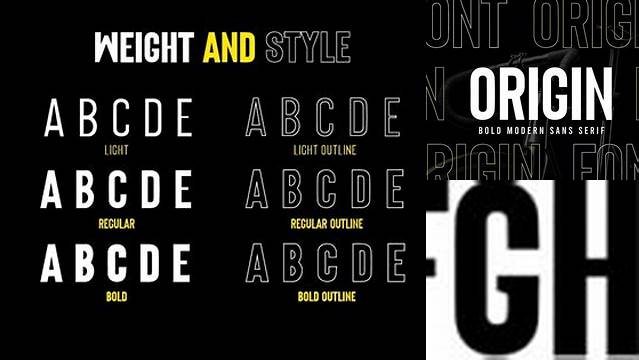
Hey guys! Ever been on the hunt for that perfect retro font to give your designs a bit of a vintage kick? Well, you're in luck! Today, we're diving deep into the world of Origin Font, a bold retro sans serif that you can download for free. We’re going to explore everything from its unique characteristics and best uses to how you can get your hands on it. So, buckle up and let’s get started!
1. What is Origin Font?
Origin Font is a stunning bold retro sans serif typeface that effortlessly blends the charm of vintage typography with modern design principles. Imagine those classic movie posters and retro advertisements – Origin Font captures that essence perfectly. Its clean lines and sturdy letterforms make it highly legible, while its distinctive style adds a touch of nostalgia to any project. This font isn't just about aesthetics; it’s about making a statement. The boldness commands attention, making it ideal for headlines, logos, and other prominent design elements. But what truly sets Origin Font apart is its versatility. It’s not just a one-trick pony; it can be used across various mediums, from print to digital, ensuring your message stands out no matter the context. Origin Font’s design incorporates subtle curves and precise angles, creating a balanced and harmonious visual experience. This attention to detail is what elevates it from a simple retro font to a design powerhouse, capable of enhancing any creative endeavor. Whether you're working on a branding project, website design, or even social media graphics, Origin Font can add that extra layer of sophistication and style.
2. Key Features of Origin Font
One of the standout key features of Origin Font is its boldness. It commands attention and makes a statement, ensuring your text stands out. This makes it perfect for headlines, titles, and logos where you need to make a strong impact. The retro aesthetic is another significant feature. Origin Font beautifully captures the essence of vintage typography, giving your designs a nostalgic and timeless feel. It's like stepping back into the golden age of design while still maintaining a modern edge. The font's sans serif design contributes to its clean and modern appearance. The absence of serifs (the small decorative strokes at the end of letters) gives it a minimalist look, making it easy to read and visually appealing. Legibility is crucial, and Origin Font excels in this area. Its clear and well-defined letterforms ensure that your text is easily readable, even at smaller sizes. This is particularly important for body text and other detailed applications. Origin Font also boasts impressive versatility. It works well across various design projects, from print materials like posters and flyers to digital platforms like websites and social media graphics. Its adaptability makes it a valuable asset in any designer's toolkit. The font’s character set typically includes uppercase and lowercase letters, numerals, punctuation marks, and often a range of special characters and symbols. This comprehensive character set allows for extensive typographic flexibility, ensuring you have everything you need to create compelling and professional designs. Origin Font often includes multiple weights and styles, such as regular, italic, and bold variations. This variety allows you to create typographic hierarchies and add visual interest to your designs. Having different weights also enhances the font's usability across various contexts and design needs.
3. Best Uses for Bold Retro Sans Serif Fonts
Bold retro sans serif fonts like Origin are incredibly versatile and can be used in a myriad of design projects. One of the most popular applications is in branding. The boldness and vintage charm of these fonts make them perfect for creating logos and brand identities that stand out and evoke a sense of nostalgia. Think about brands that want to project a classic yet contemporary image – a bold retro sans serif font can be the perfect choice. Headlines and titles are another area where these fonts shine. Their strong, impactful presence ensures that your message is immediately noticed. Whether it's a website header, a poster headline, or a magazine title, a bold retro sans serif font can grab attention and draw the reader in. These fonts are also excellent for posters and flyers. The combination of boldness and retro style can create visually striking designs that are sure to catch the eye. They're particularly effective for events, promotions, and announcements where you want to make a big impact. For packaging design, a bold retro sans serif font can add a touch of vintage flair to your product. This can be especially effective for products that want to convey a sense of quality, craftsmanship, or nostalgia. Think about craft beers, artisanal goods, and vintage-inspired products – these fonts can enhance the overall aesthetic and appeal. In website design, bold retro sans serif fonts can be used to create a unique and engaging user experience. They can be used for headings, navigation menus, and other key elements to add personality and style to your site. Social media graphics also benefit from the use of these fonts. With so much content vying for attention, a bold retro sans serif font can help your posts stand out in a crowded feed.
6. Pairing Origin Font with Other Fonts
Pairing fonts effectively is crucial for creating visually appealing and harmonious designs. Origin Font, with its bold retro sans serif style, can be beautifully complemented by a variety of other fonts. The key is to find fonts that balance its boldness and retro charm without overpowering it. One classic pairing strategy is to combine a bold sans serif like Origin with a simpler, more understated sans serif. For example, pairing Origin Font with a clean and modern sans serif like Open Sans or Lato can create a balanced and professional look. The simpler font provides a neutral backdrop that allows Origin Font to stand out as a headline or title. Another approach is to pair Origin Font with a serif font. This combination can add a touch of elegance and sophistication to your designs. A good choice might be a classic serif font like Times New Roman or Georgia. The contrast between the bold sans serif and the serif font can create a visually interesting and dynamic effect. When pairing fonts, it's important to consider the overall tone and style of your design. If you're aiming for a vintage or retro look, you might pair Origin Font with another retro-inspired font, such as a script or hand-lettered typeface. However, it's crucial to use this approach sparingly, as too many retro elements can make your design look cluttered or outdated. For a more modern and minimalist design, you might pair Origin Font with a lighter, more geometric sans serif. Fonts like Montserrat or Raleway can work well in this context. The key is to choose a font that complements Origin Font's boldness without competing for attention. Color can also play a significant role in font pairing. Using contrasting colors for different fonts can help to highlight the differences between them and create visual interest. However, it's important to use color thoughtfully and avoid combinations that are jarring or difficult to read. In addition to considering the visual aspects of font pairing, it's also important to think about legibility. Make sure that the fonts you choose are easy to read, especially in body text. Avoid using fonts that are too similar in weight or style, as this can make your text look monotonous. Experimentation is key to finding the perfect font pairings. Don't be afraid to try different combinations and see what works best for your design. Online resources like FontPair and Typewolf can provide inspiration and suggestions for font pairings, helping you to create stunning and effective typography.
7. Origin Font in Branding and Logo Design
When it comes to branding and logo design, choosing the right font is crucial. Origin Font, with its bold retro sans serif style, can be a fantastic choice for brands looking to project a strong, vintage-inspired image. Its boldness and distinctive character make it ideal for creating logos that stand out and leave a lasting impression. One of the primary reasons Origin Font works well in branding is its versatility. It can be used across various industries, from fashion and lifestyle to food and technology. Its retro aesthetic can evoke a sense of nostalgia and quality, making it particularly effective for brands that want to convey a sense of heritage or craftsmanship. In logo design, Origin Font can be used in a variety of ways. It can serve as the primary typeface for the logo, creating a strong and memorable visual identity. Alternatively, it can be used in combination with other fonts to create a more layered and dynamic design. When using Origin Font in a logo, it's important to consider the overall brand message and target audience. The font's boldness and retro style may not be suitable for every brand. However, for brands that want to project confidence, authenticity, and a touch of nostalgia, it can be an excellent choice. The clean lines and clear letterforms of Origin Font also make it highly legible, even at smaller sizes. This is crucial for logo design, as the logo needs to be recognizable and readable across various applications, from business cards to website favicons. Color plays a significant role in branding, and Origin Font pairs well with a variety of color palettes. For a vintage-inspired look, you might consider using muted tones and earthy colors. For a more modern and vibrant feel, you can pair Origin Font with bold, saturated colors. In addition to the typeface itself, the overall composition and layout of the logo are important. Experiment with different arrangements and spacing to find a design that is visually appealing and effectively communicates your brand message. When using Origin Font in branding materials beyond the logo, such as website headers, marketing collateral, and social media graphics, it's important to maintain consistency. Use the font in a consistent way across all touchpoints to create a cohesive brand identity. Overall, Origin Font is a valuable asset for branding and logo design. Its boldness, retro charm, and versatility make it a great choice for brands that want to stand out and make a statement. By using it thoughtfully and consistently, you can create a strong and memorable brand identity that resonates with your target audience.
8. Using Origin Font in Web Design
In web design, typography plays a crucial role in creating an engaging and user-friendly experience. Origin Font, with its bold retro sans serif style, can be a fantastic asset for adding personality and style to your website. However, it's essential to use it thoughtfully to ensure optimal readability and visual harmony. One of the primary considerations when using Origin Font in web design is readability. While its boldness makes it great for headlines and titles, it may not be the best choice for large blocks of body text. Using a simpler, more legible font for body text can improve the overall reading experience for your visitors. Origin Font works particularly well for headings and subheadings. Its strong presence can help to break up the content and guide the reader's eye. Using Origin Font for headings can also create a visual hierarchy, making it easier for visitors to scan and understand your content. In navigation menus, Origin Font can add a touch of style and sophistication. However, it's important to ensure that the font size is large enough and the spacing is adequate to maintain legibility. A cluttered or hard-to-read navigation menu can frustrate visitors and negatively impact their experience. When using Origin Font on your website, consider the overall design aesthetic. Its retro charm may not be suitable for every type of website. However, if your site has a vintage or retro theme, Origin Font can be a perfect fit. You can also use it to add a touch of personality to a more modern design. Color is another important factor to consider when using Origin Font in web design. Experiment with different color combinations to find a palette that complements the font's style and enhances readability. Using high contrast colors for text and background can improve legibility, while more subtle color schemes can create a more sophisticated look. In addition to visual considerations, it's important to think about performance when using Origin Font on your website. Large font files can slow down your site's loading time, which can negatively impact user experience and SEO. To mitigate this, you can use font optimization techniques such as font subsetting and font compression. Another way to improve performance is to use web fonts hosted on a content delivery network (CDN). CDNs can serve fonts more efficiently, reducing loading times and improving overall website performance. Overall, Origin Font can be a valuable asset for web design. Its boldness and retro style can add personality and visual interest to your site. However, it's essential to use it thoughtfully and in conjunction with other design elements to create a user-friendly and engaging experience.
9. Social Media Graphics with Origin Font
In the fast-paced world of social media, grabbing attention is crucial. Origin Font, with its bold retro sans serif style, can be an excellent choice for creating eye-catching social media graphics. Its boldness and distinctive character make it ideal for headlines, titles, and call-to-action text that stands out in a crowded feed. One of the key advantages of using Origin Font in social media graphics is its versatility. It can be used across various platforms, including Instagram, Facebook, Twitter, and Pinterest. Its retro aesthetic can add a touch of nostalgia and personality to your posts, helping you to connect with your audience on a deeper level. When designing social media graphics with Origin Font, it's important to consider the platform's specific requirements and best practices. For example, Instagram graphics tend to be more visually driven, while Twitter graphics often focus on concise text and compelling headlines. Using Origin Font effectively on social media requires careful attention to layout and composition. Make sure your text is easy to read and that your graphics are visually balanced. Use whitespace strategically to create visual breathing room and avoid cluttering your design. Color plays a significant role in social media graphics, and Origin Font pairs well with a variety of color palettes. Using bold and vibrant colors can help your graphics stand out, while more muted tones can create a sophisticated and understated look. Experiment with different color combinations to find a palette that complements your brand and resonates with your audience. In addition to static graphics, Origin Font can also be used in animated graphics and videos for social media. Its boldness and retro style can add a dynamic and engaging element to your video content. When using Origin Font in video, make sure your text is legible and that it remains on screen long enough for viewers to read it. Consistency is key in social media branding, so it's important to use Origin Font consistently across all your graphics and posts. This will help to create a cohesive brand identity and make your content more recognizable. Overall, Origin Font is a valuable tool for creating effective social media graphics. Its boldness, retro charm, and versatility make it a great choice for brands looking to make a statement on social media. By using it thoughtfully and consistently, you can create engaging content that captures attention and drives results.
10. Posters and Flyers using Origin Font
For posters and flyers, which need to grab attention quickly and effectively, Origin Font can be a game-changer. Its bold retro sans serif style is perfect for creating visually striking designs that stand out in crowded spaces. Whether you're promoting an event, advertising a product, or making an announcement, Origin Font can help you get your message across with impact. One of the primary advantages of using Origin Font in posters and flyers is its readability. Its clear letterforms and bold presence ensure that your text is easily legible, even from a distance. This is crucial for posters and flyers, as people often view them from afar or while passing by quickly. Origin Font's retro aesthetic adds a touch of nostalgia and personality to your designs, making them more memorable and engaging. This can be particularly effective for events and promotions that target a specific audience or evoke a certain mood. When designing posters and flyers with Origin Font, it's important to consider the overall layout and composition. Use whitespace effectively to create visual breathing room and avoid cluttering your design. A well-organized layout will make your message easier to read and understand. Color is a critical element in poster and flyer design, and Origin Font pairs well with a variety of color palettes. Using bold, contrasting colors can help your design stand out and grab attention, while more subtle color schemes can create a sophisticated and understated look. In addition to the typeface itself, the overall design elements of your poster or flyer should complement Origin Font's style. Consider using retro-inspired illustrations, graphics, and backgrounds to create a cohesive and visually appealing design. When creating posters and flyers, it's important to consider the target audience and the context in which the design will be viewed. For example, a poster for a music event might use bold colors and dynamic typography, while a flyer for a professional conference might opt for a more subdued and sophisticated design. Printing quality is also an important factor to consider. Make sure your design is optimized for print and that you choose the right paper stock and printing method to achieve the desired result. Overall, Origin Font is a valuable tool for creating effective posters and flyers. Its boldness, retro charm, and readability make it a great choice for designs that need to capture attention and convey a message quickly. By using it thoughtfully and in conjunction with other design elements, you can create visually stunning posters and flyers that get noticed.